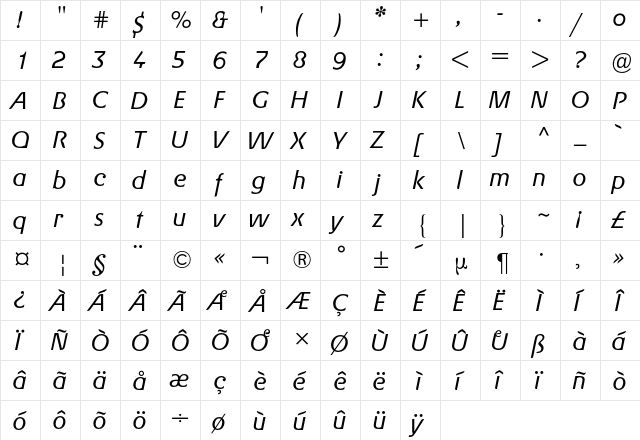
Gerstner BQ Regular
Design Context for Gerstner BQ Typeface
Gerstner BQ offers clean, dependable letterforms without strong stylistic allegiance, making it a practical choice for designers who need flexibility.
Pro Tip: Pair Gerstner BQ with a font of contrasting weight or personality to build a more expressive typographic hierarchy.